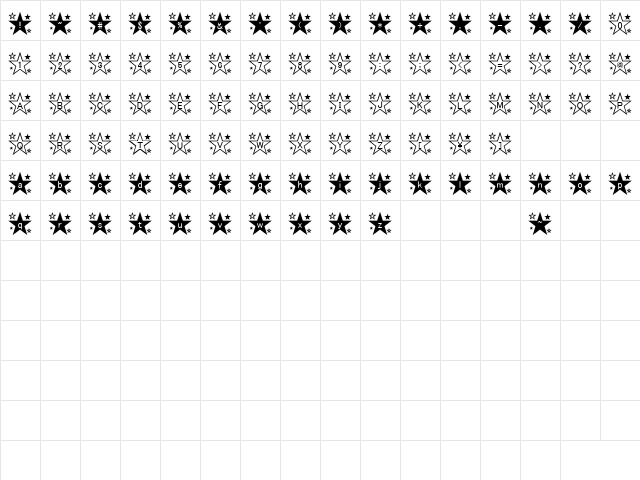
star_font Regular Font Preview
star_font Regular
Design Context for star_font Typeface
star_font is a composed and adaptable typeface that performs quietly and consistently across a wide range of design contexts.